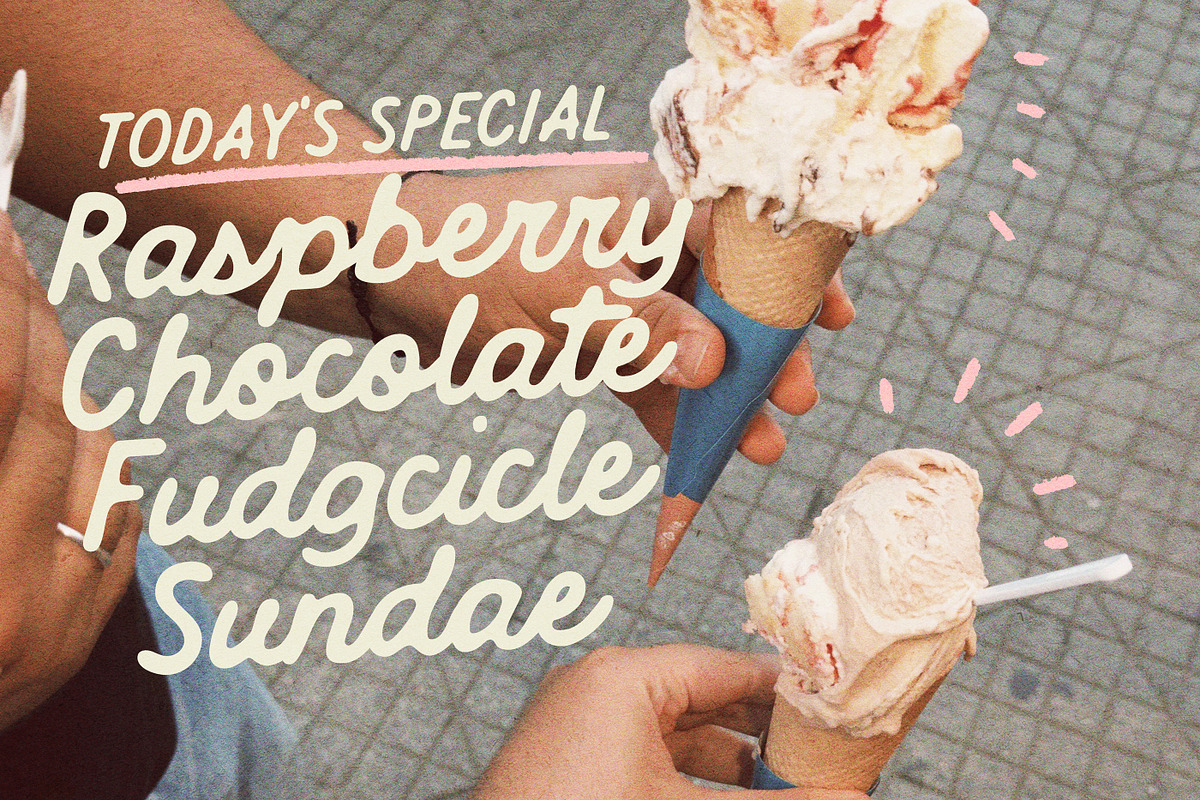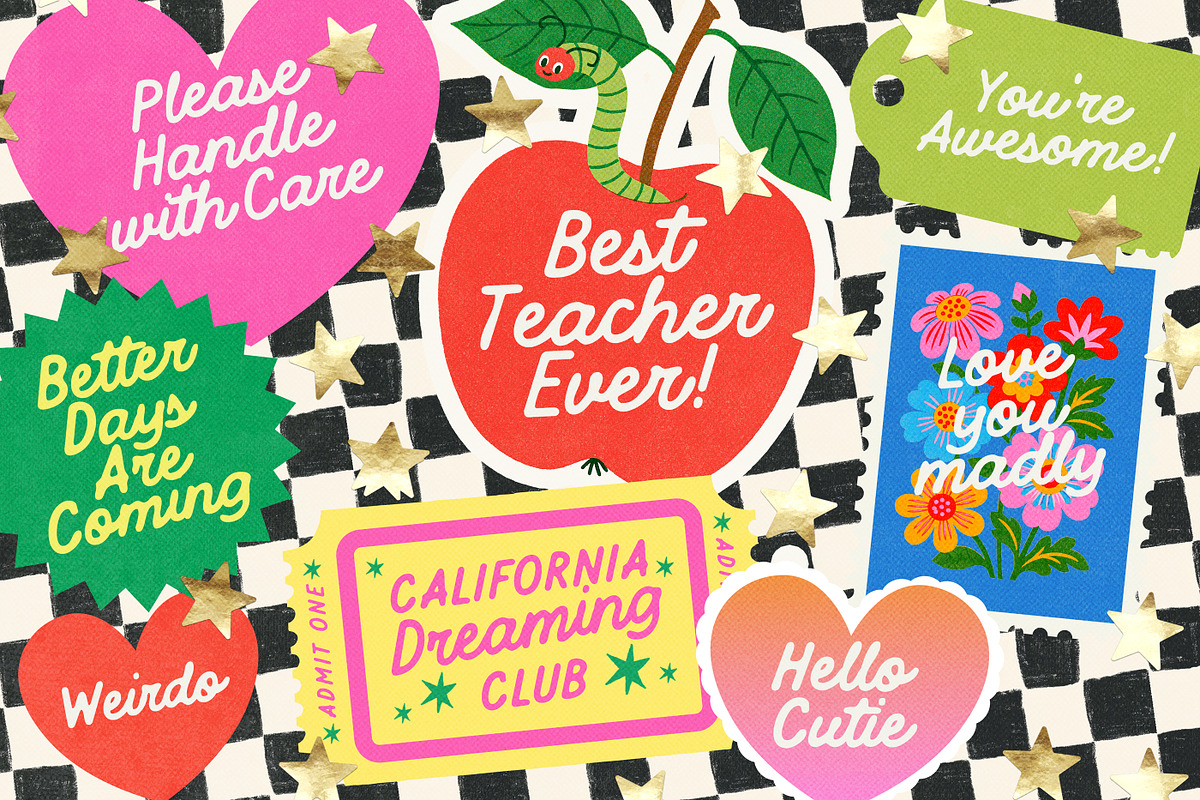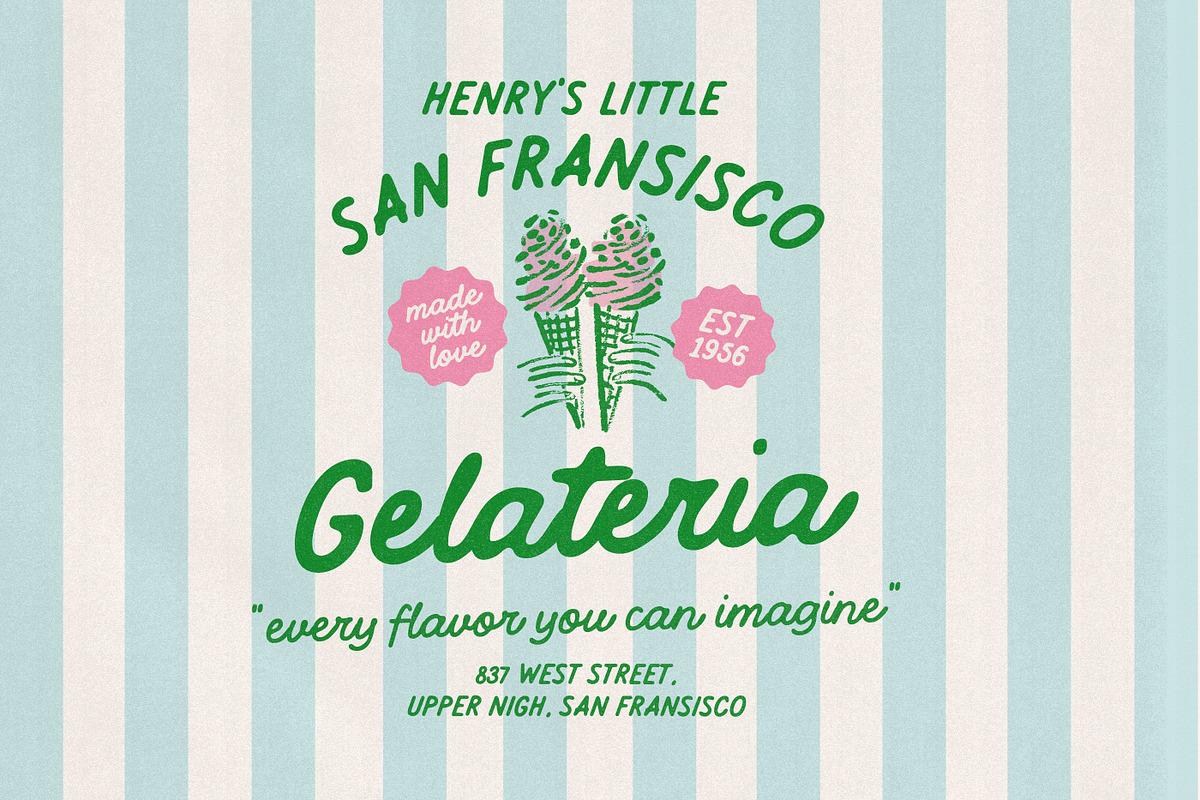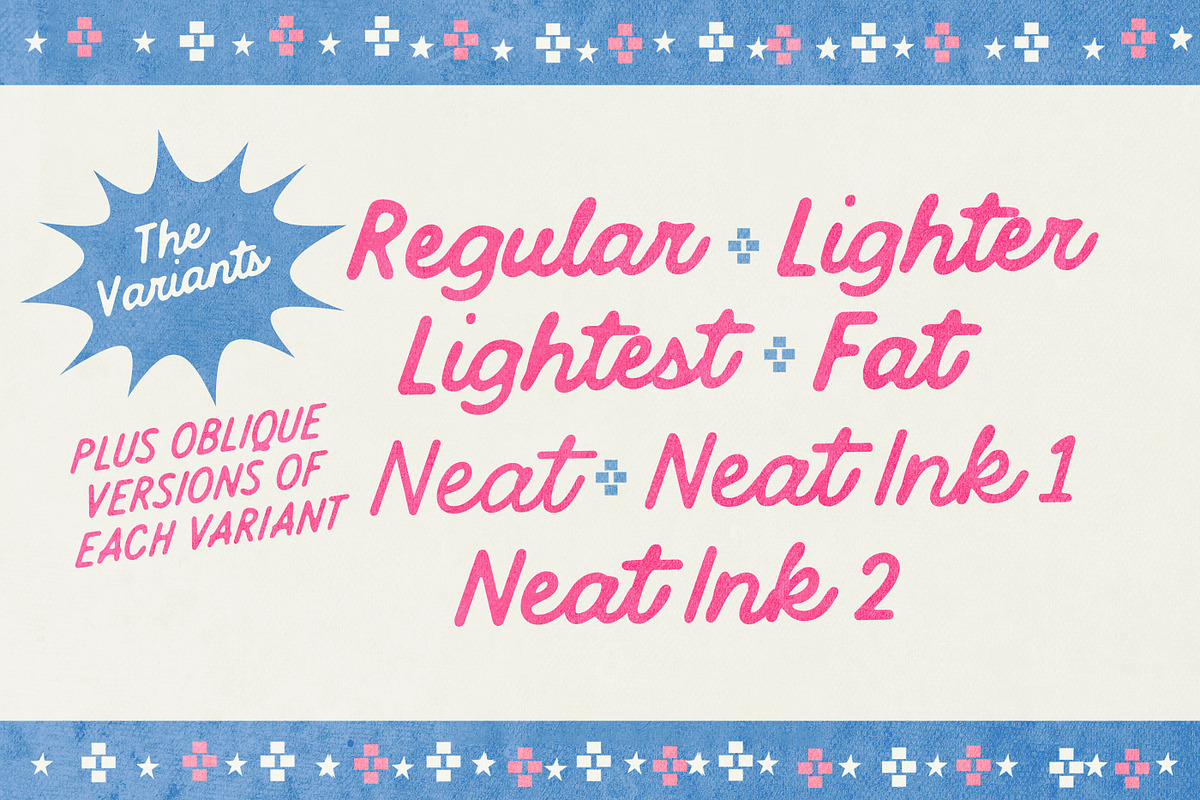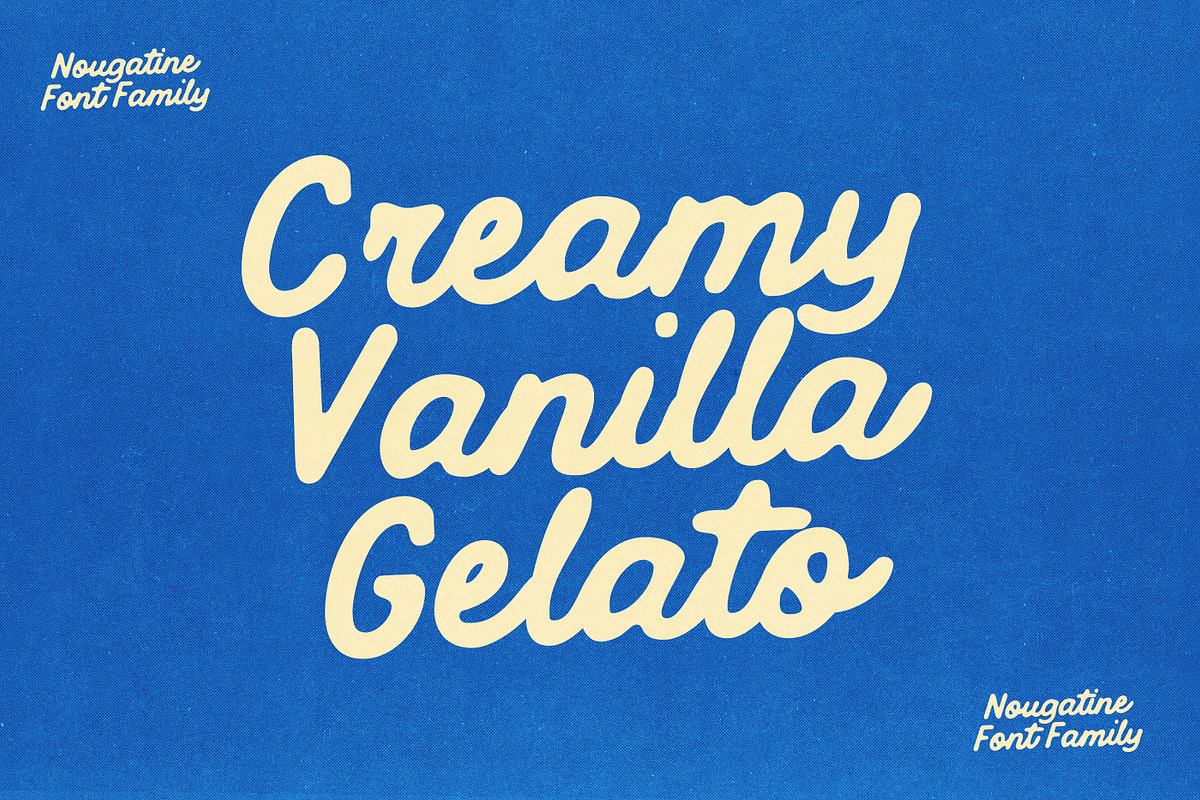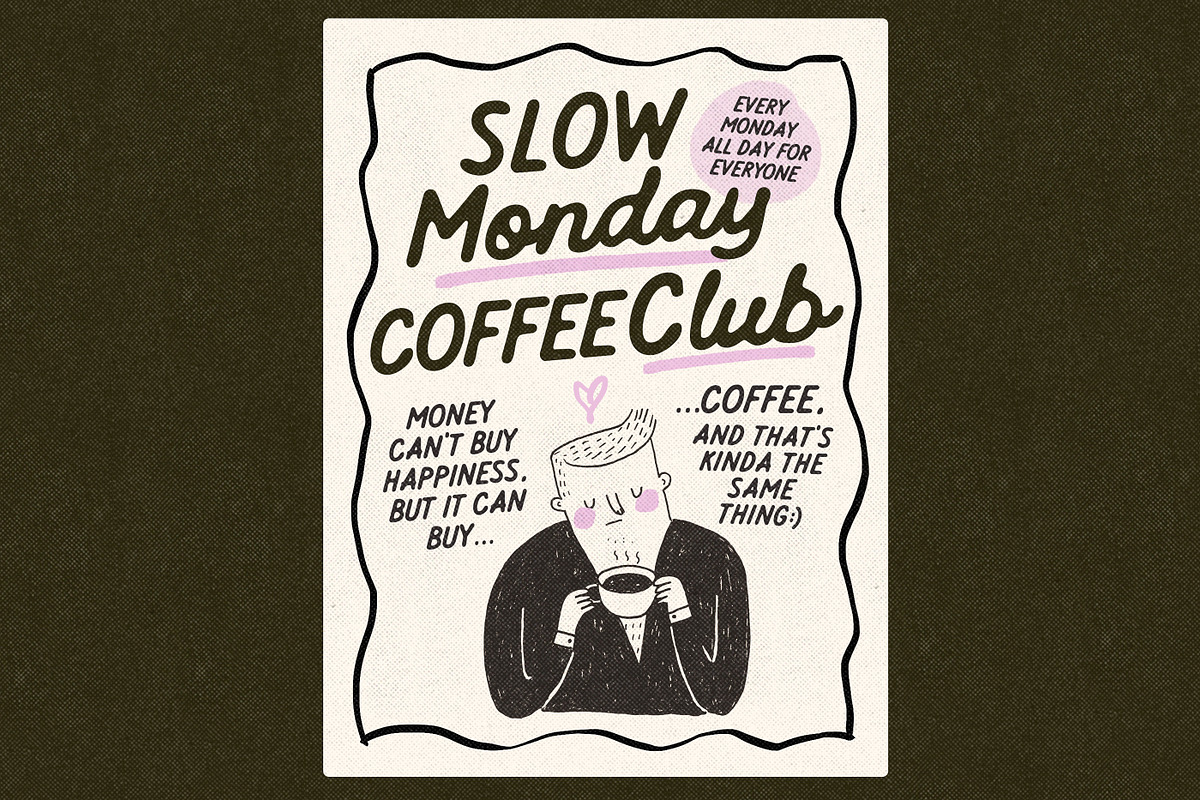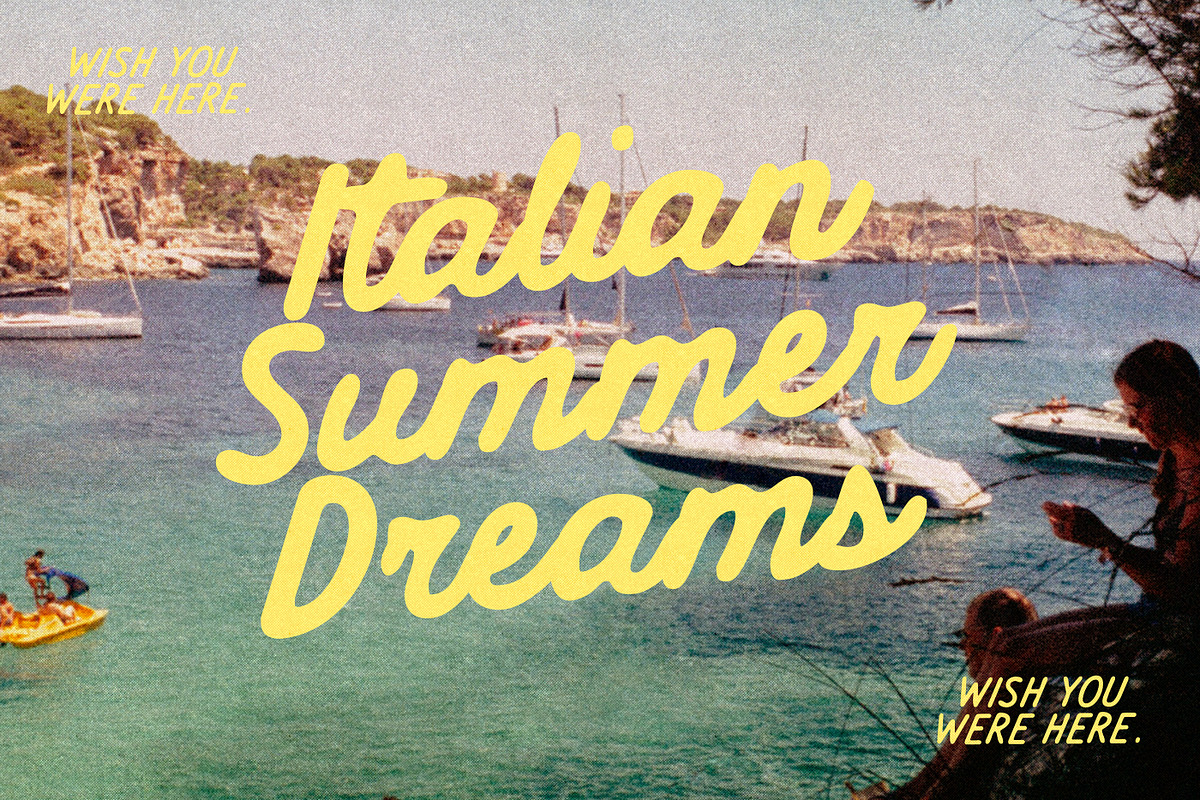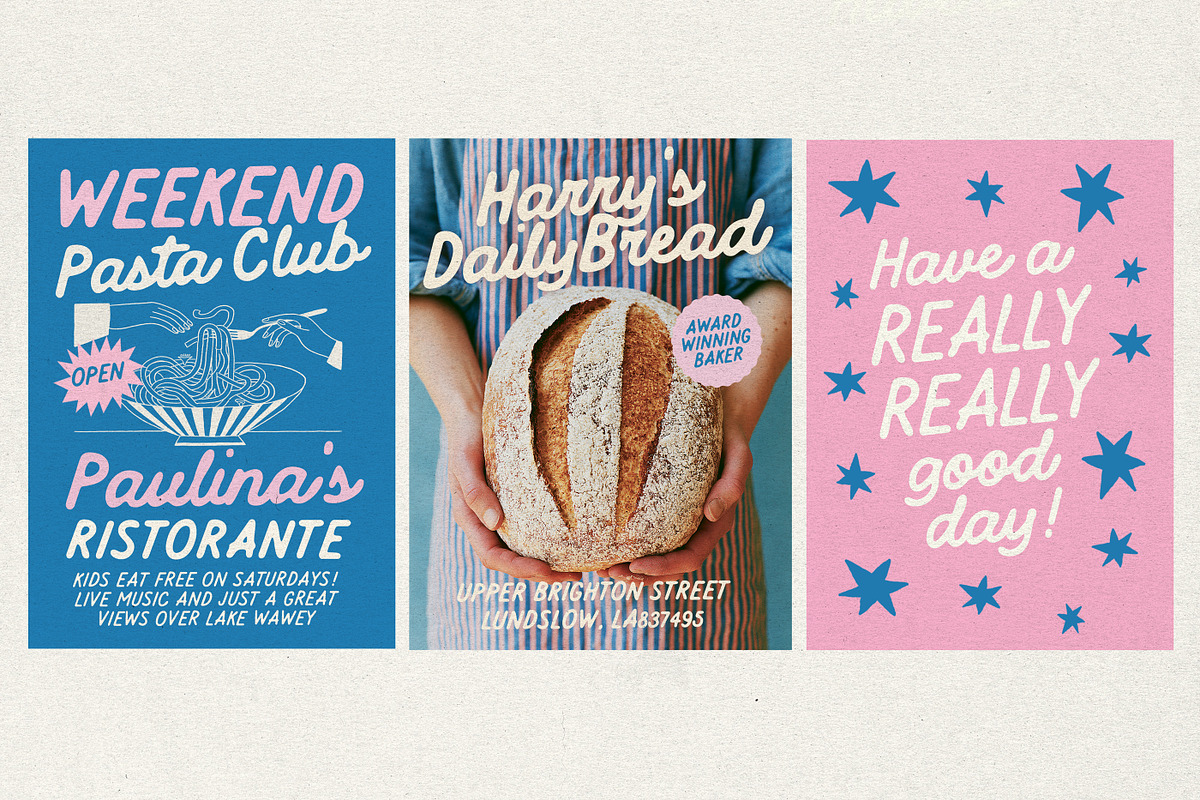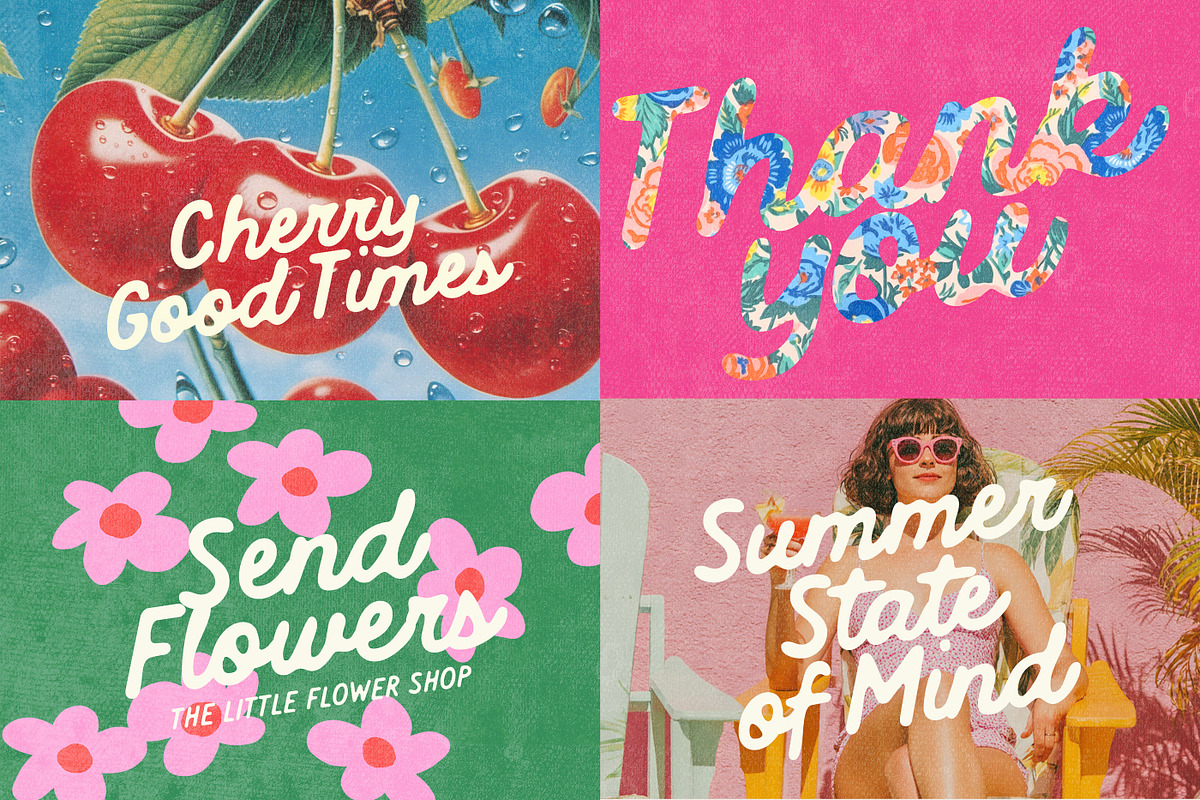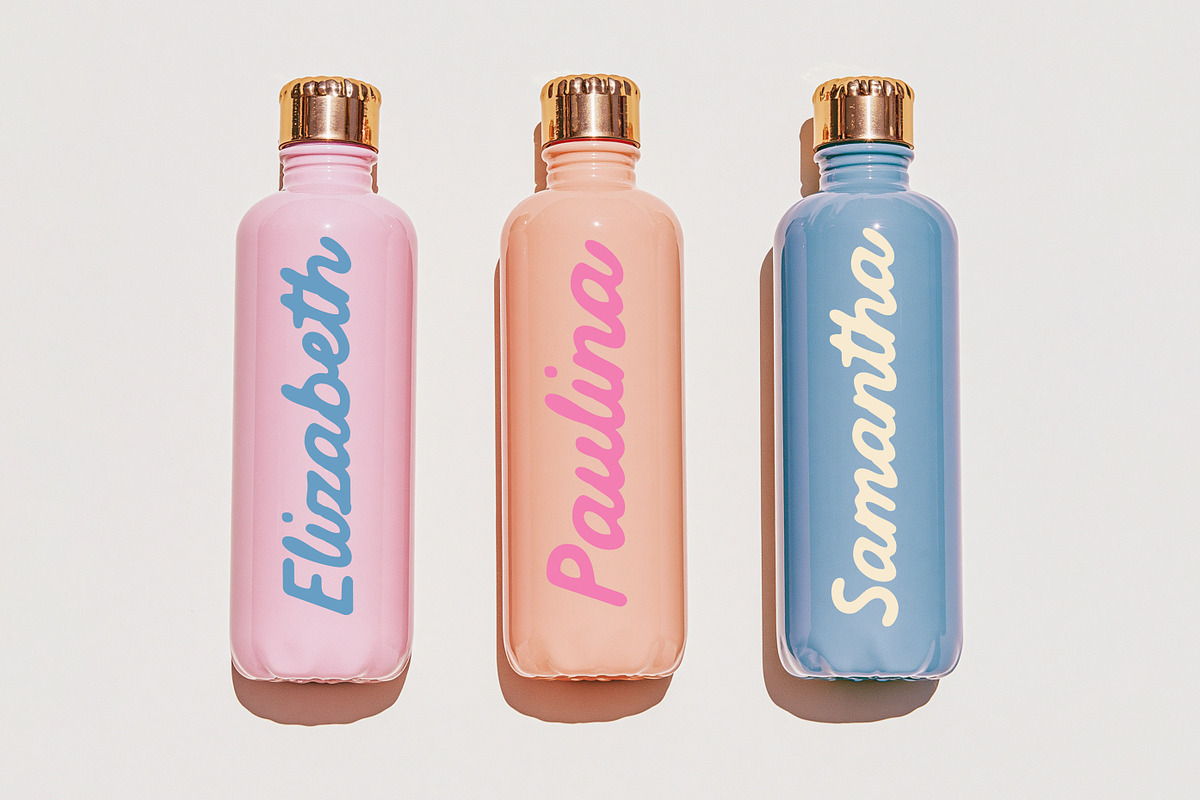
Nougatine Script Font Family
Say hello to Nougatine!
A Silky smooth, inky script font-family with cheerful retro charm!
Nougatine has a bold and playful personality inspired by retro hand painted lettering and vintage print design. Soft inky edges , with slightly imperfect forms, each character blending into each other to creative a sence of smooth movement.
Variants : Two basic styles include the 'Regular' and the 'Neater' version of Regular, Regular being the more 'inky' of the two. Each have slight weight variations to suit lighter / darker backgrounds and, oblique versions of each (14 fonts in total).
Great for posters, packaging, branding and any projects that aim to feel cheerful, informal and handcrafted.